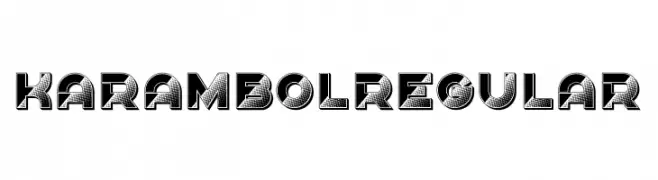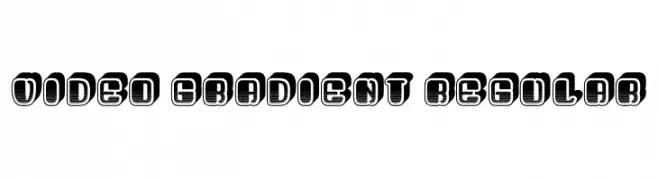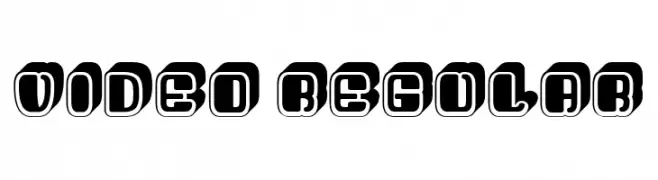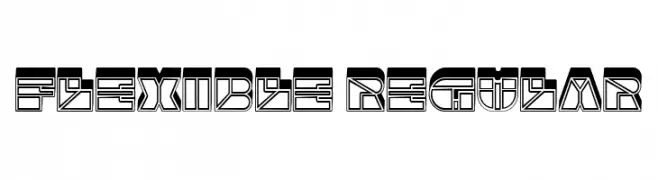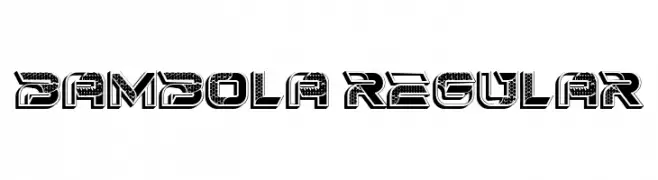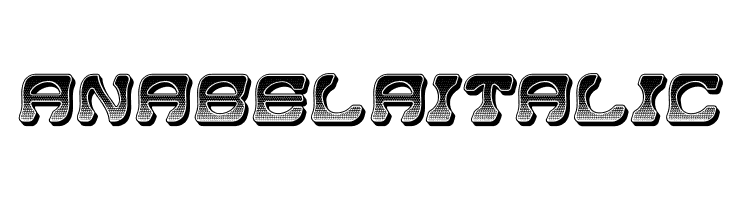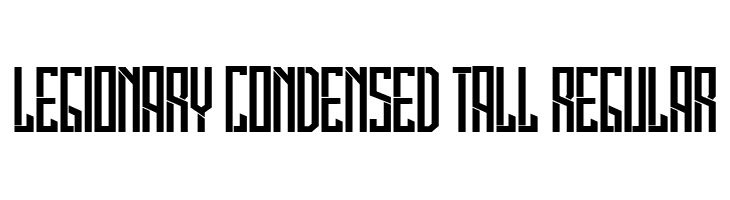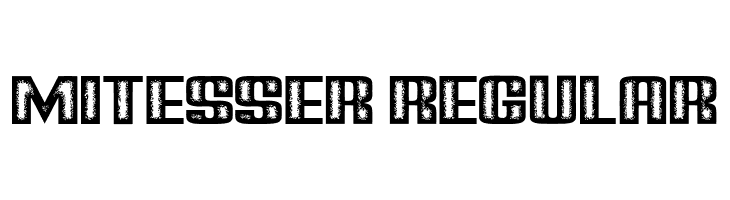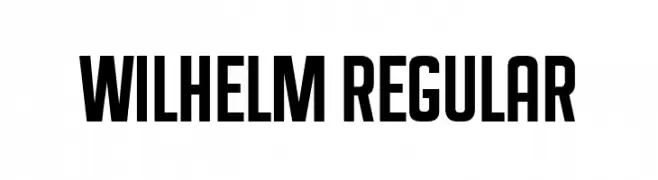
A bold, geometric font with a 3D shadow effect, perfect for impactful designs.
A bold, decorative font with a 3D effect and distressed texture.
A bold, geometric font with a filled, three-dimensional look and retro-futuristic style.
A bold, decorative font with a 3D effect and dotted textures.
A bold, condensed font with a modern and impactful style.
A bold, modern font with thick, block-like characters for impactful design.
A bold, decorative font with a gradient and halftone pattern for a 3D effect.
A bold, three-dimensional font with a retro, shadowed style.
A geometric, futuristic font with bold, angular lines and intricate patterns.
A bold, decorative font with textured, three-dimensional letterforms.